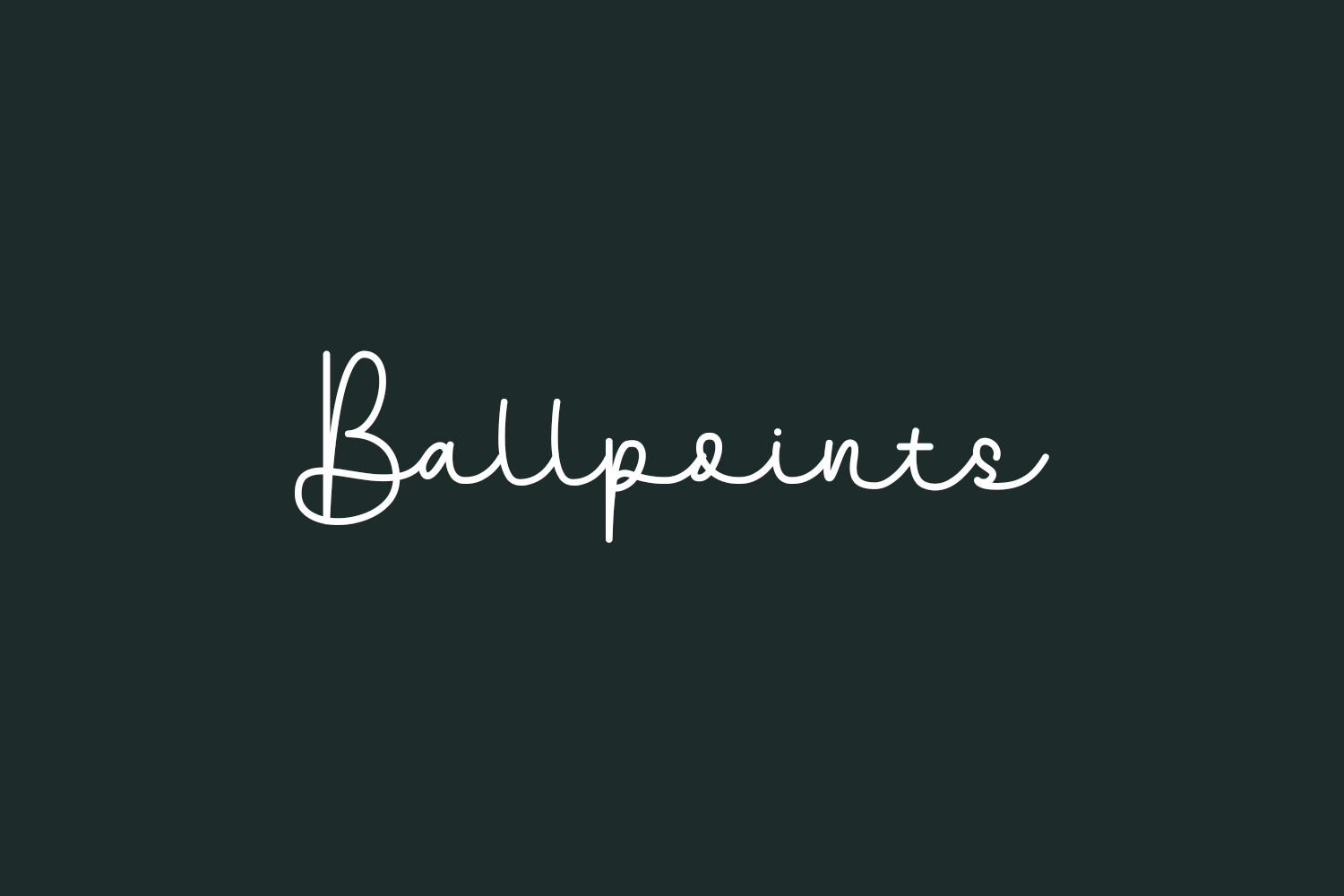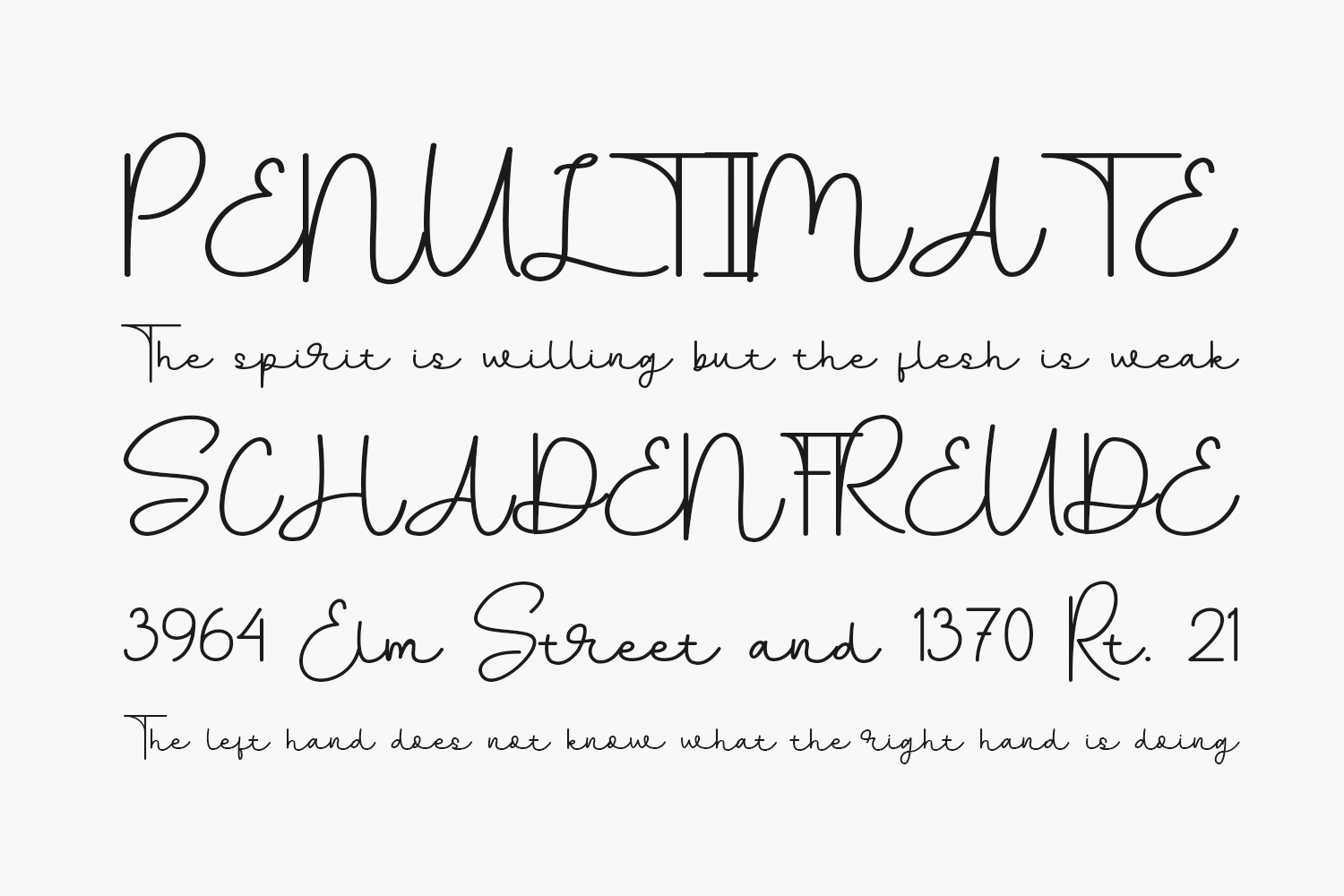
Ballpoints Free Font is an incredibly distinct, delicate, and timeless handwritten font. It looks stunning on wedding invitations, thank you cards, quotes, greeting cards, logos, business cards, and every other design which needs a handwritten touch. Ballpoints Free Font was designed by JunCreative and is free for personal use only. Please purchase the full version for commercial use.